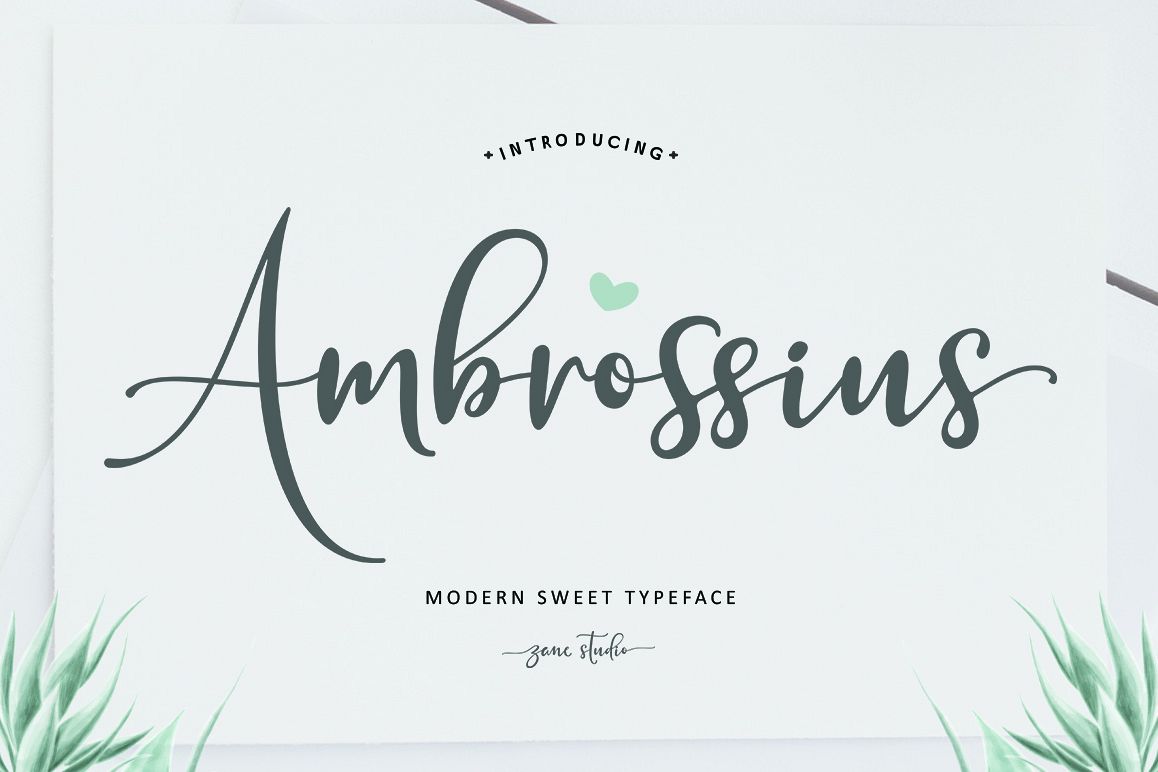
Ambrossius Script
Ambrossius Script is a new modern script font with an irregular base line. Trendy and feminine style. Ambrossius Script looks beautiful in wedding invitations, thank you cards, quotes, greeting cards, logos, business cards, and more. Perfect for use in ink or watercolors. Including beginning and end letters, alternatives and support for many languages.